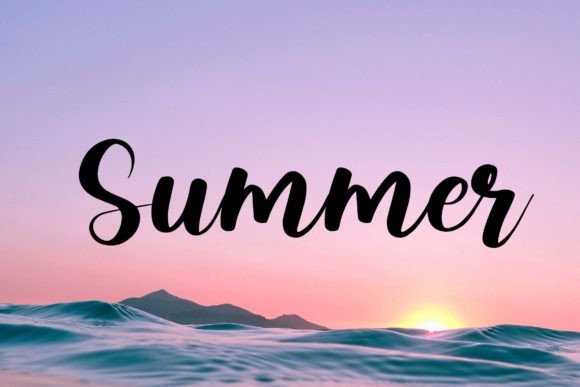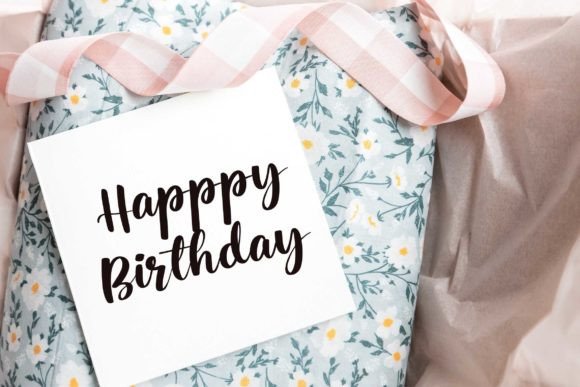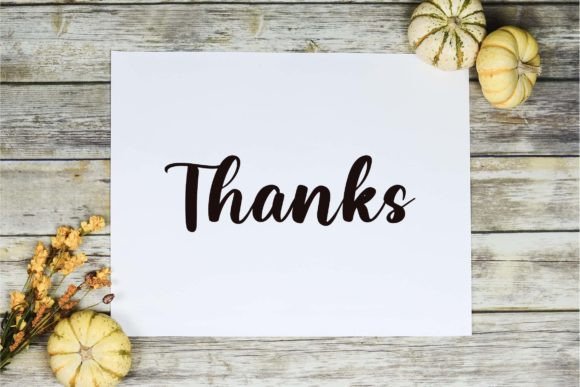
Christmas font is a beautiful handwritten typeface designed to bring elegance and charm to your festive designs. Its graceful style adds a delicate touch, making it the perfect choice for holiday-themed projects and beyond. Whether you want to create greeting cards, social media posts, or craft designs, Christmas font transforms simple ideas into stunning works of art.
Perfect for Holiday Greeting Cards
This font shines when used on holiday greeting cards. Its elegant strokes give messages a warm and heartfelt feel that connects deeply with friends and family. The Christmas font’s handwritten look adds a personal touch that makes every card truly special.
Ideal for Social Media and Crafts
Christmasfont is highly versatile for social media graphics, especially during the festive season. Its stylish and beautiful appearance helps your posts stand out and capture the joyful spirit of the holidays. Additionally, it works wonderfully on crafts and DIY projects, adding sophistication and creativity.
Adds Beauty to Any Creative Project
This elegant font isn’t limited to holiday use. It fits perfectly in a variety of creative projects, including invitations, posters, labels, and packaging. Christmasfont brings a timeless, classic feel that enhances the beauty of your work.
Easy to Use and Read
Despite its elegant style, Christmasfont remains easy to read and highly adaptable. It suits both digital and print media, ensuring your designs look polished across different platforms.
Why Choose Christmas Font?
If you want to infuse your holiday and creative projects with elegance and charm, Christmasfont is an excellent choice. It blends traditional handwritten warmth with modern sophistication, making your designs memorable and eye-catching.